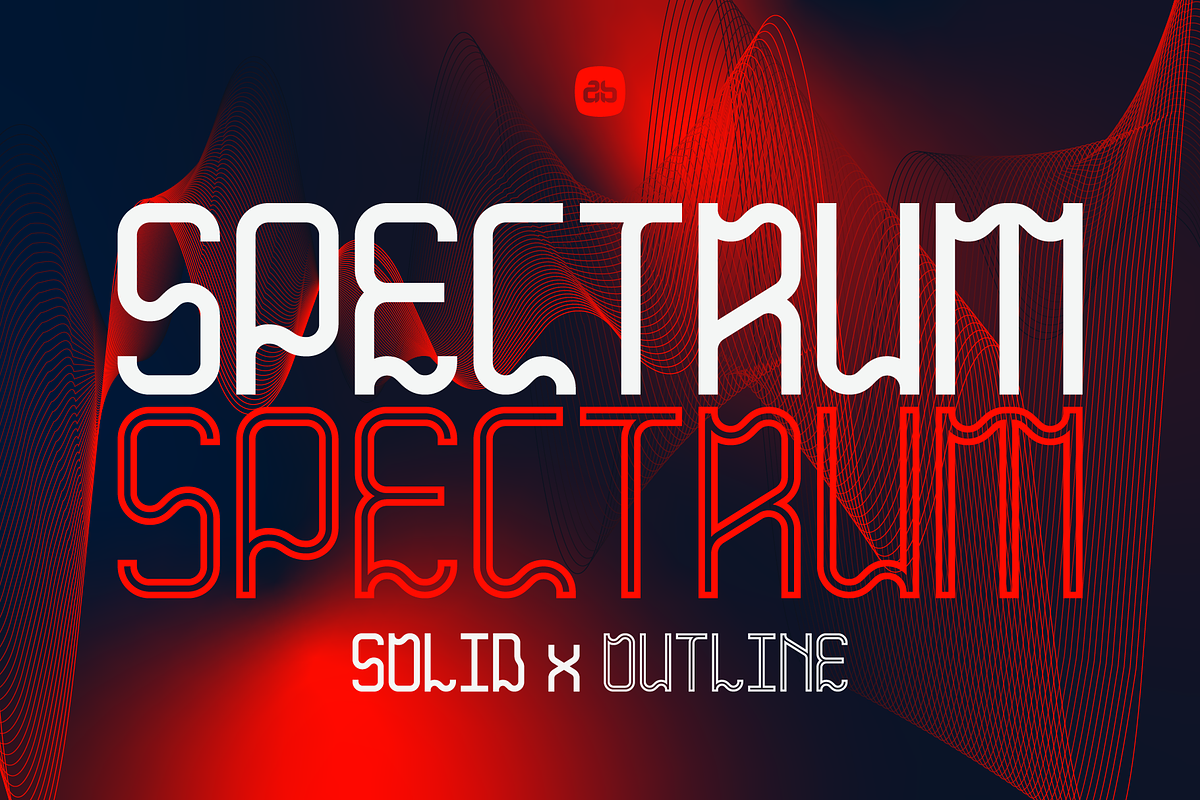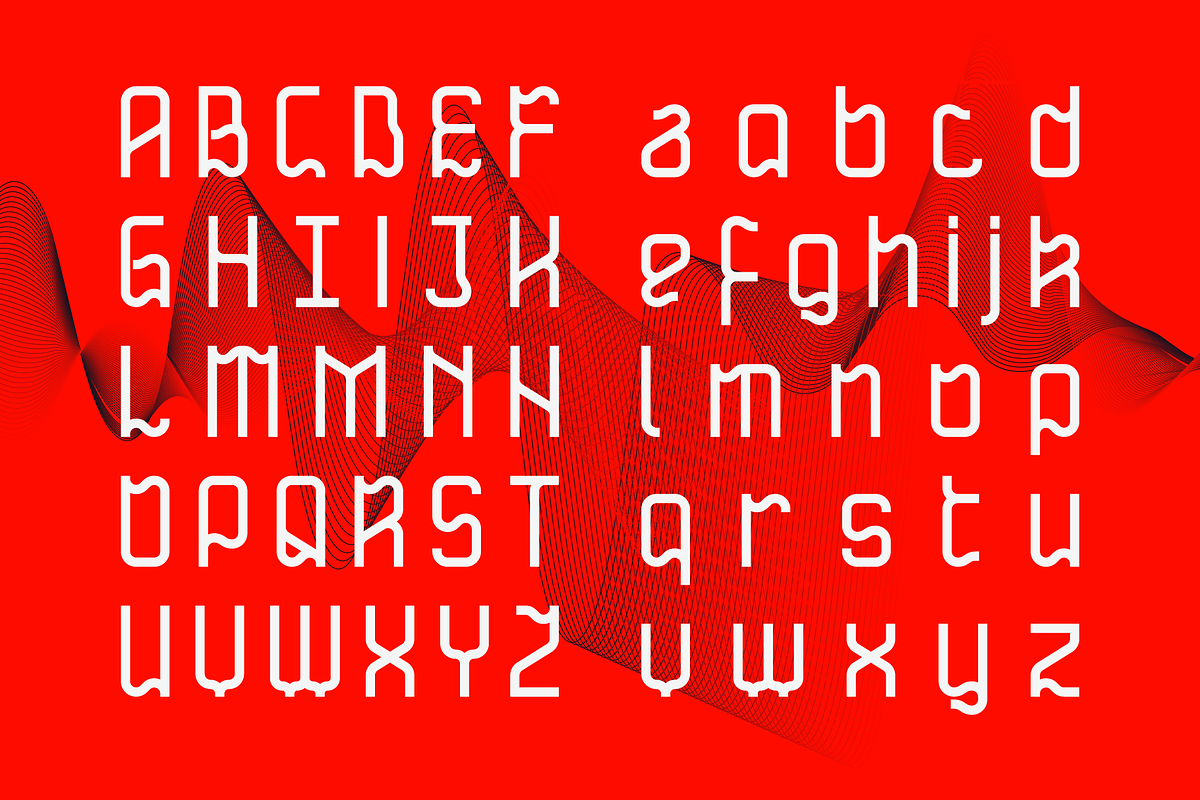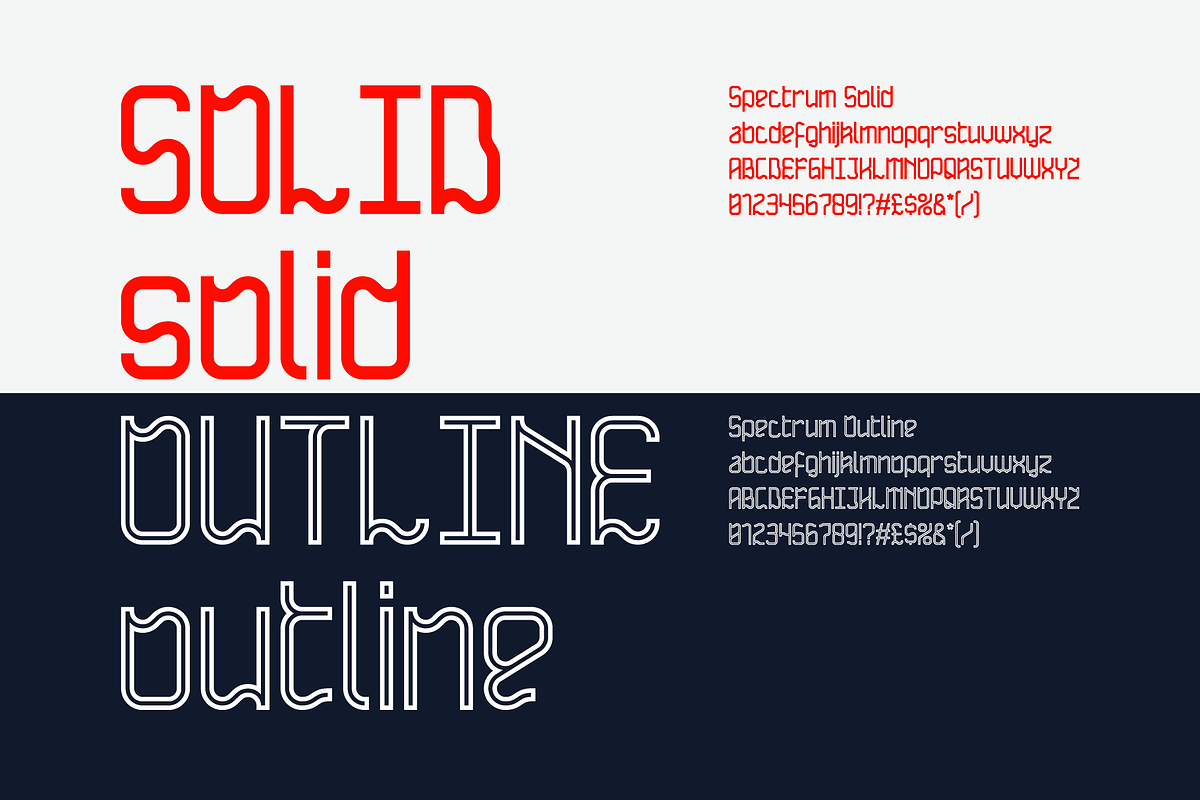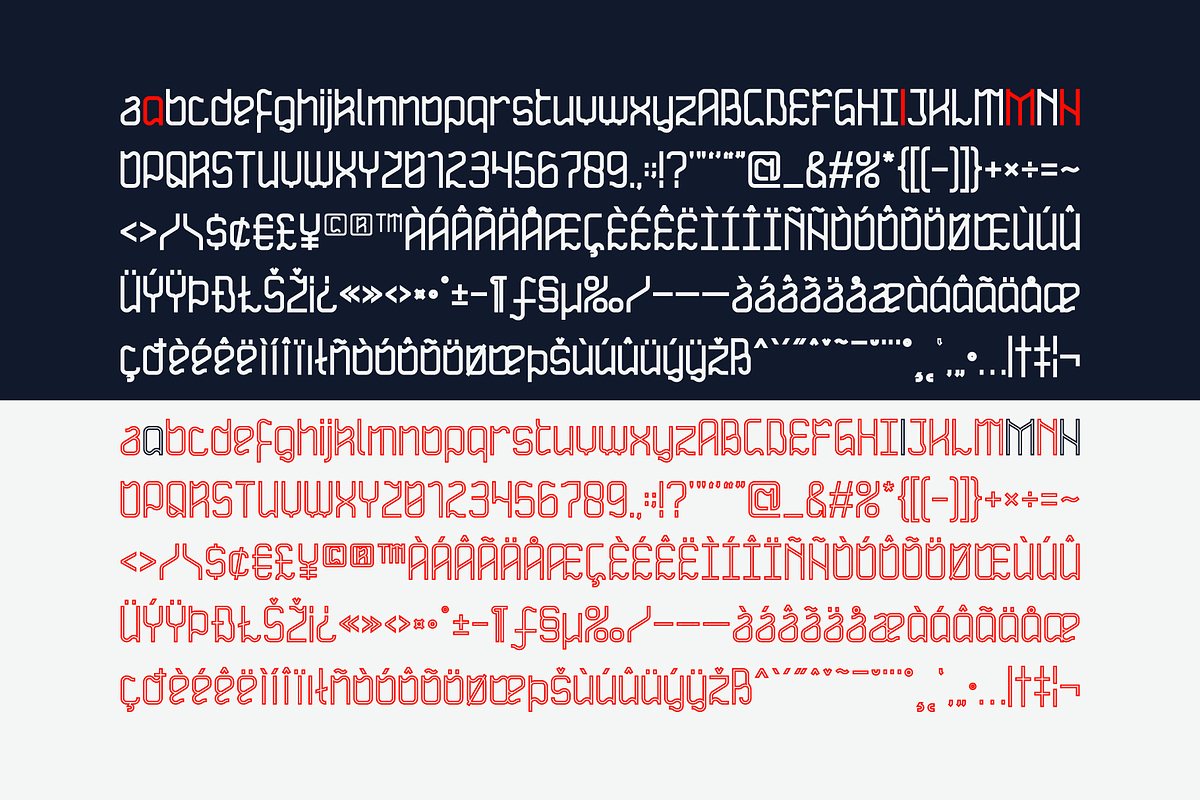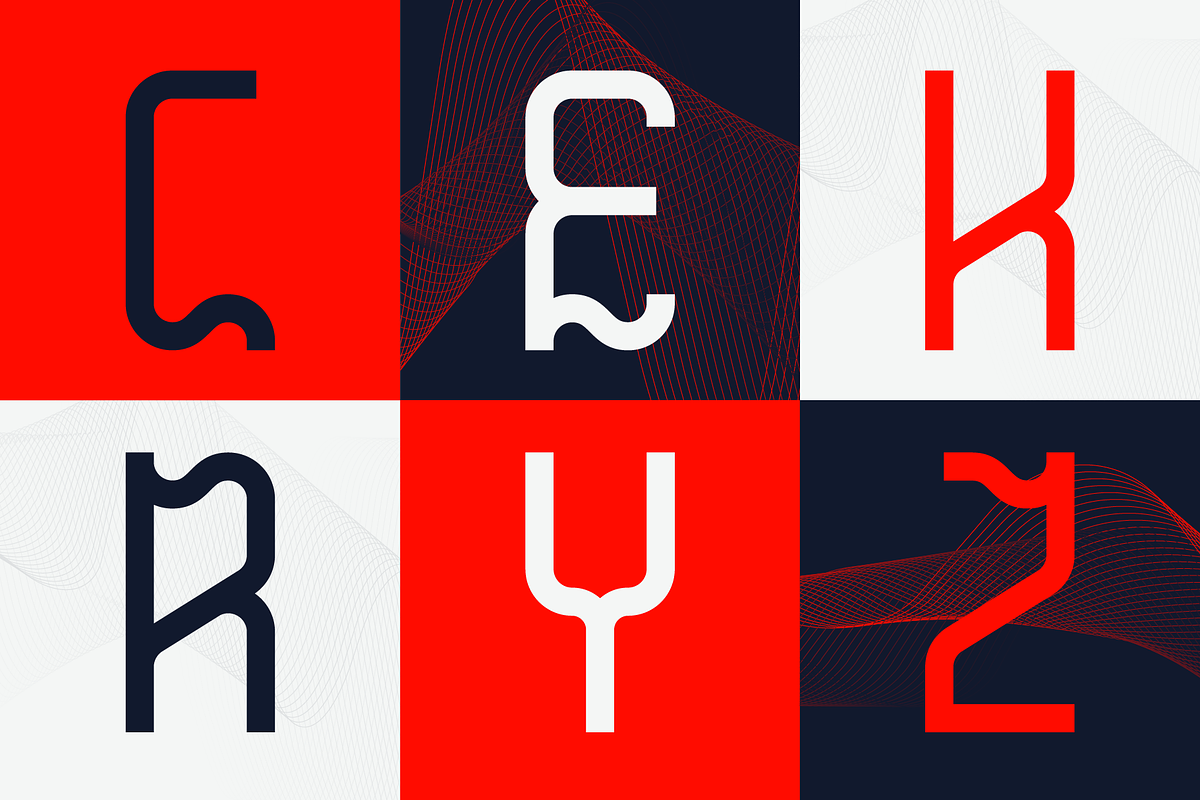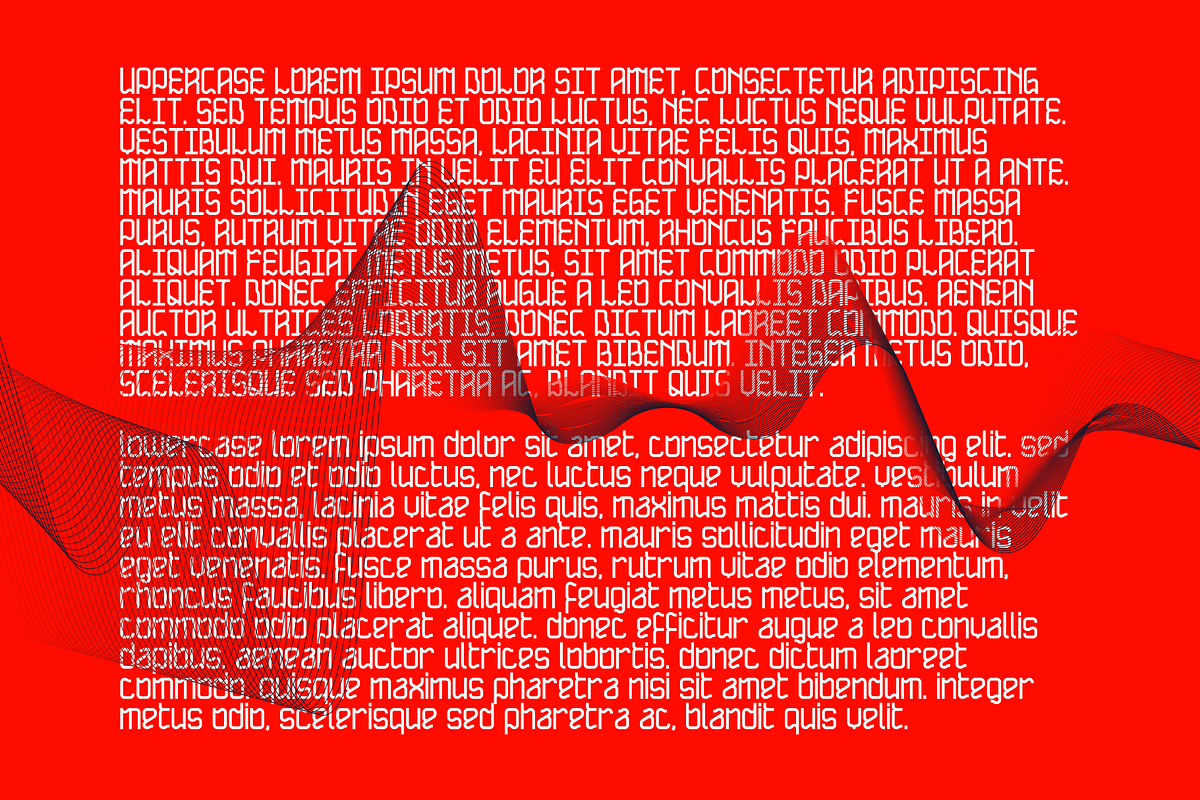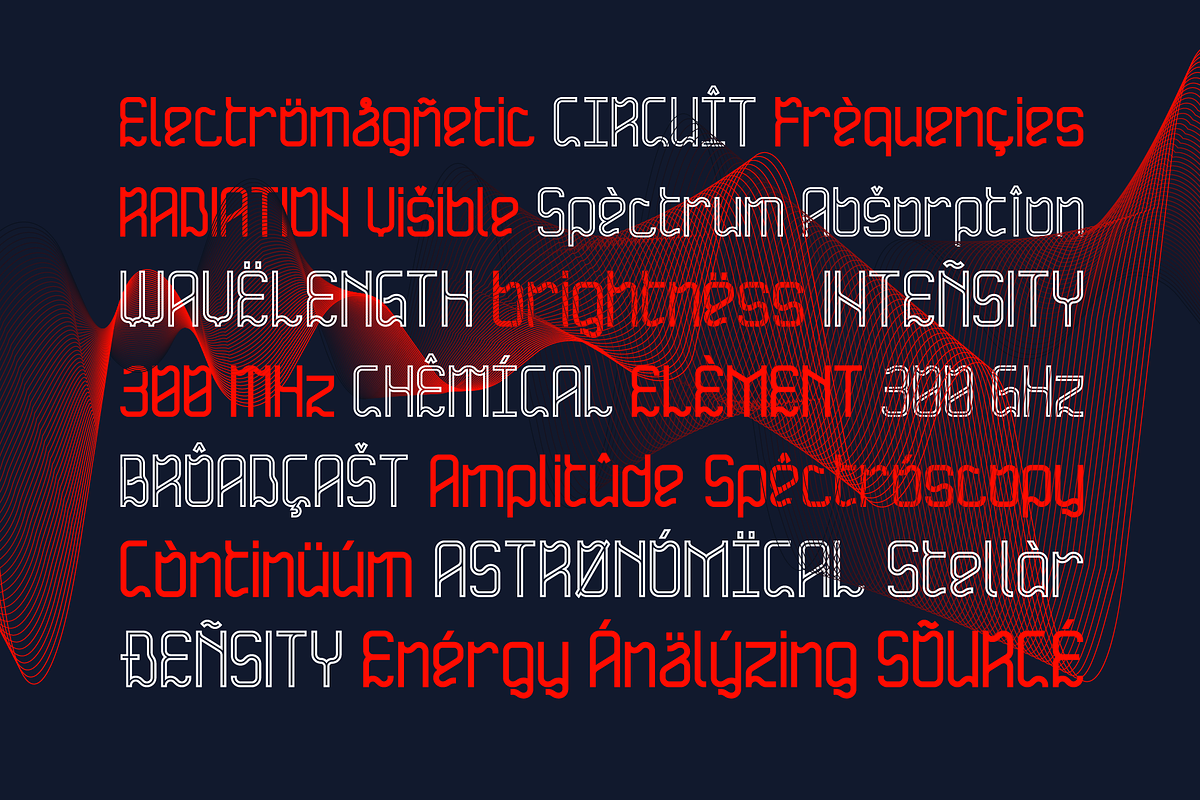
SPECTRUM Dual Weight Font
SPECTRUM - Created 2018 - Dual Weight Flowing Typedesign
Spectrum typeface was created as an experiment in using basic flowing elements that link to create a unique movement and feeling to the typeface.
Experimental in its construction Spectrum is still a very usable typeface with multi-lingual support the options are endless.
Set alongside Solid is the Outline version with its hollow inner stroke, aligning both on top of each other can generate some cool effects!